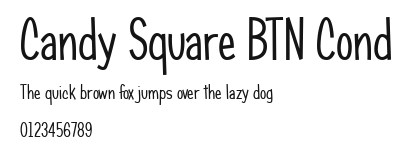
Candy Square BTN Cond.ttf is a modern, elegant sans-serif font designed for ultimate readability and visual harmony. Perfect for branding, headlines, web design, and print materials.